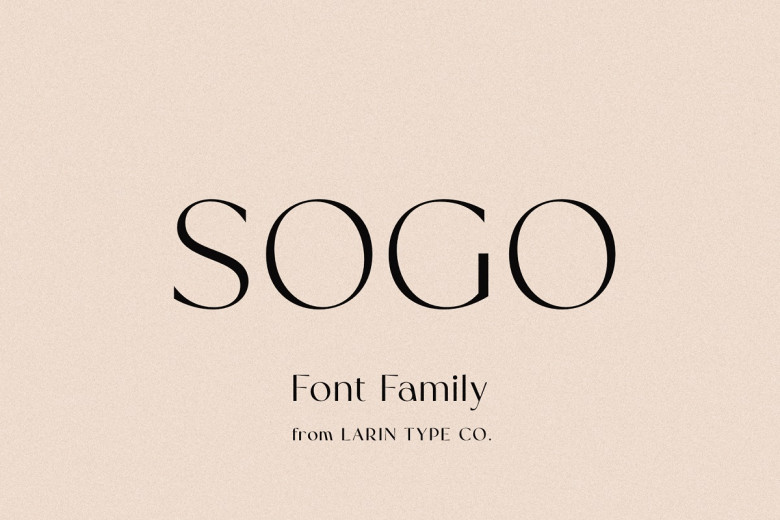
Sogo Font
Sogo is an elegant and modern sans serif font family that comes in four weights that range from Thin up to Bold. Sans serif font is versatile font ideal for any design project; with sleek shapes and balanced proportions it creates a distinctive visual charm and unique character.
Logos can be designed and used for packaging, advertising editorial design, corporate and magazine branding, book cover descriptions and headings – whatever else might require branding! OpenType fonts make logo creation easier.
Sogo Sans Serif Font